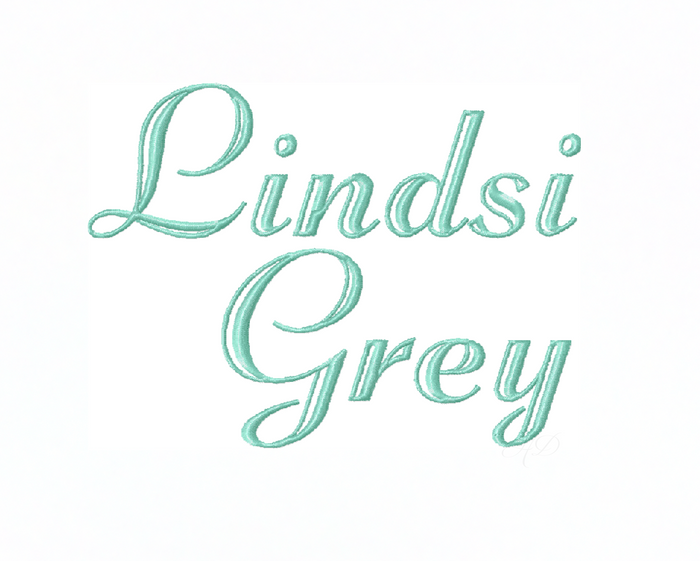
Lindsi Grey Satin Inline Embroidery Font
Transform your crafting projects with the Lindsi Grey Satin Stitch Script Font, a stunning embroidery font that includes uppercase and lowercase letters A-Z, as well as numbers 0-9 and a decorative dot. This font is perfect for personalizing items, making it a must-have for crafters and DIY enthusiasts alike.